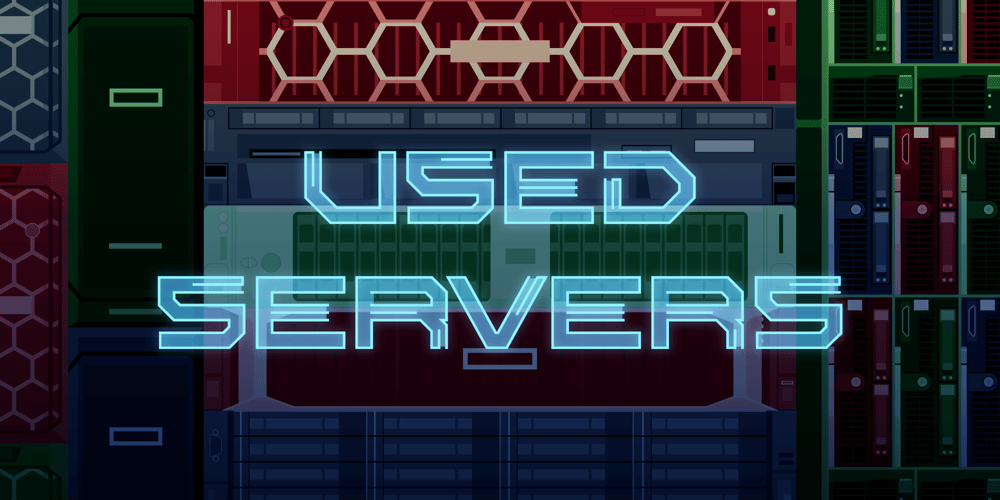
Used Servers Font Family was designed by Corey Donovan and published by AltaTech. Used Servers contains 2 styles and family package options. Jump back to the future with both faces of the Used Servers family. This blocky titling font comes ready with ligatures and diacritics for all of your English, French, and German retro-future needs. Art Deco density combines with subtly-weighted horizontals for a slight 3D effect. As a retro omni-technical font with roots in OCR and n-segment displays, Used Servers is equally at home as: Titling in an 80s cassette-punk text adventure Environmental advertising in a cyberpunk megalopolis Art Deco filigree worked into a sacred orb Glyphs holding secrets from before time